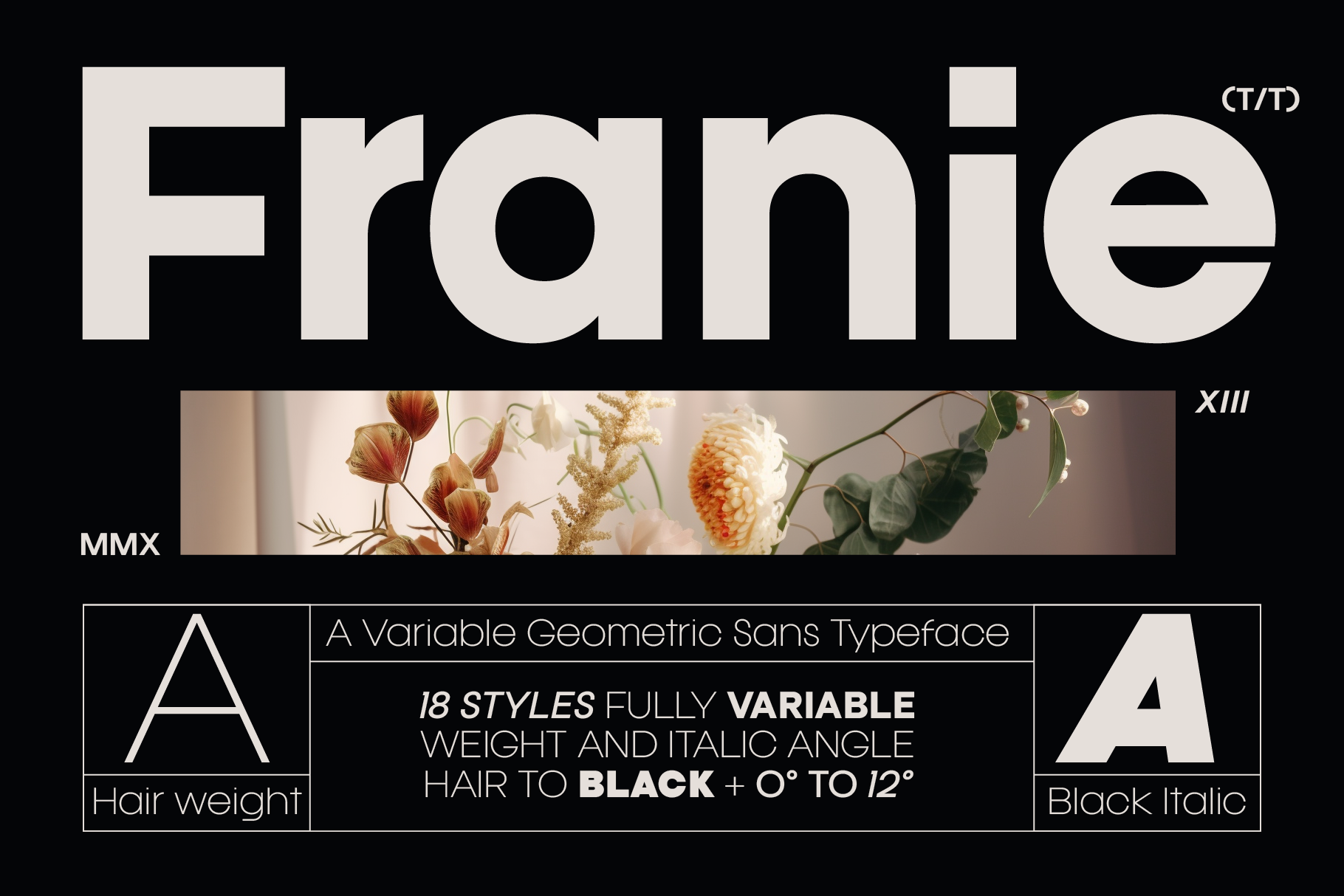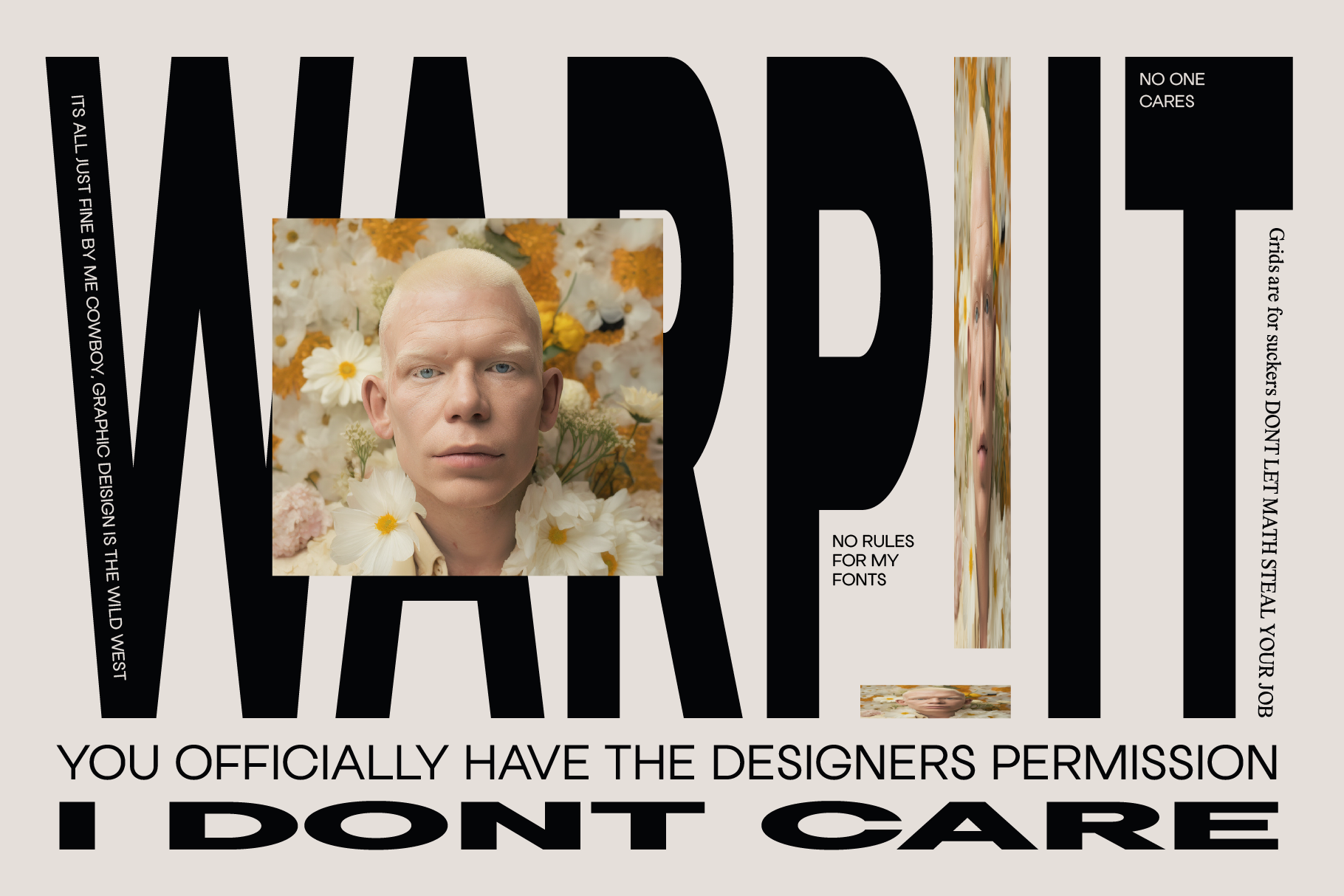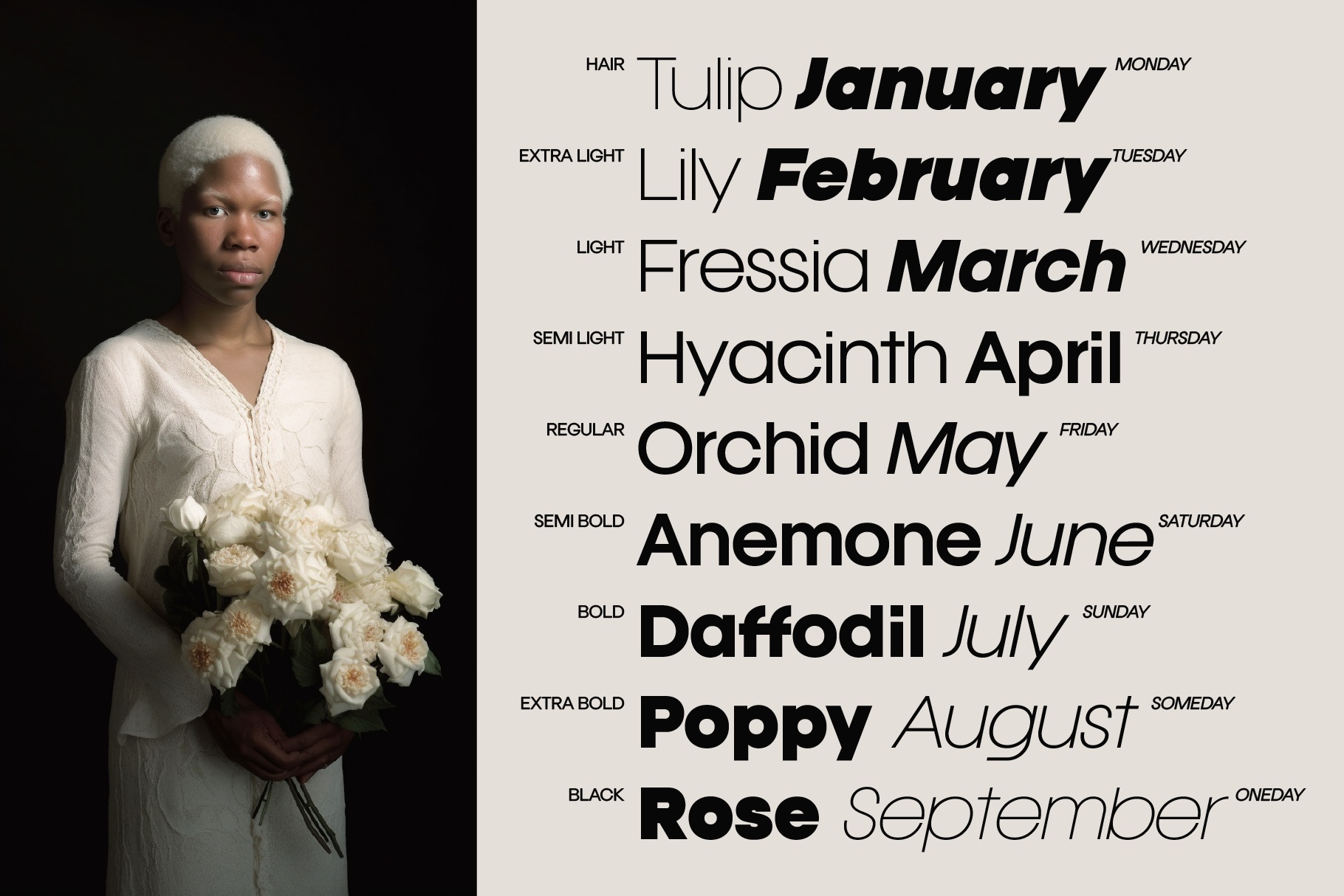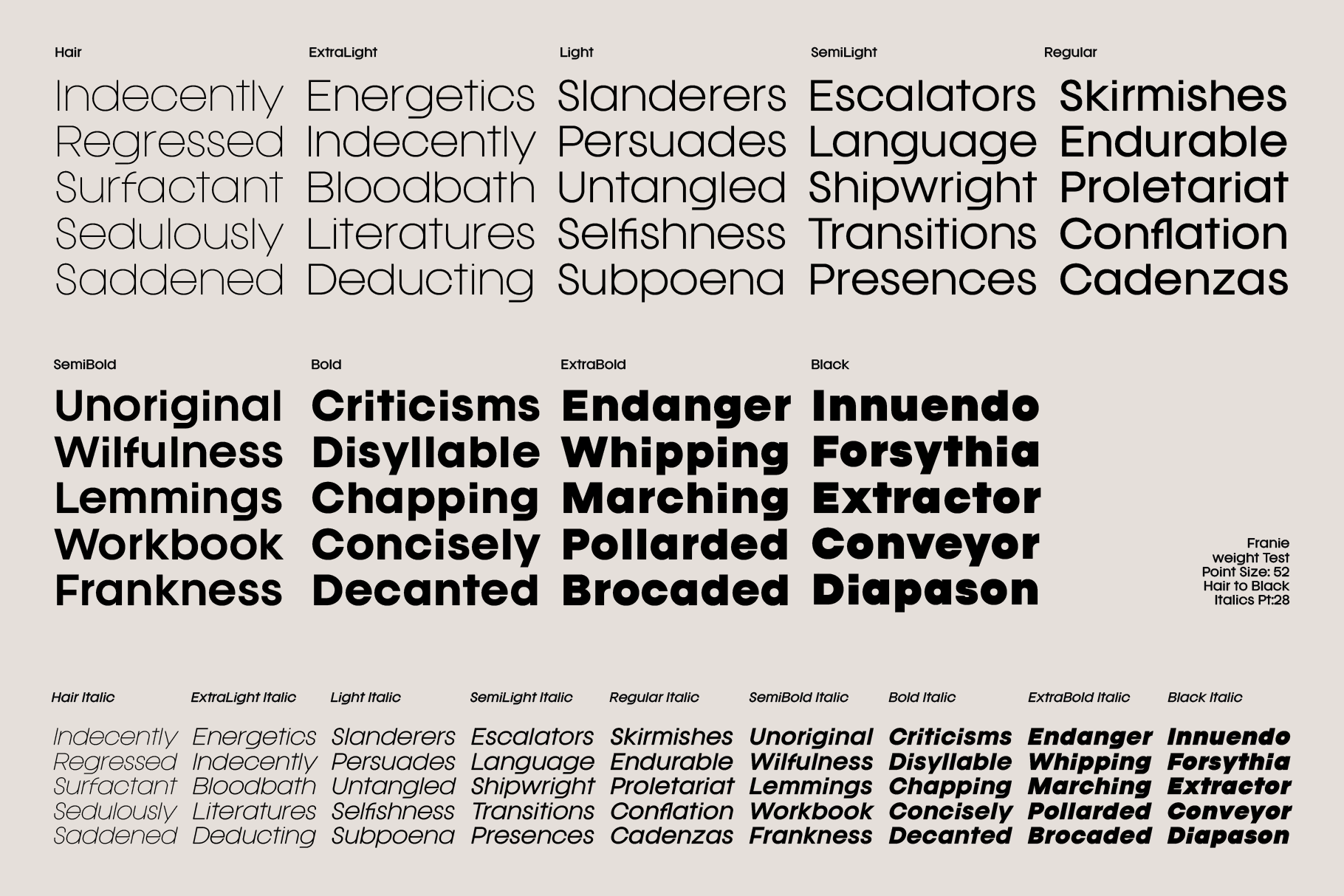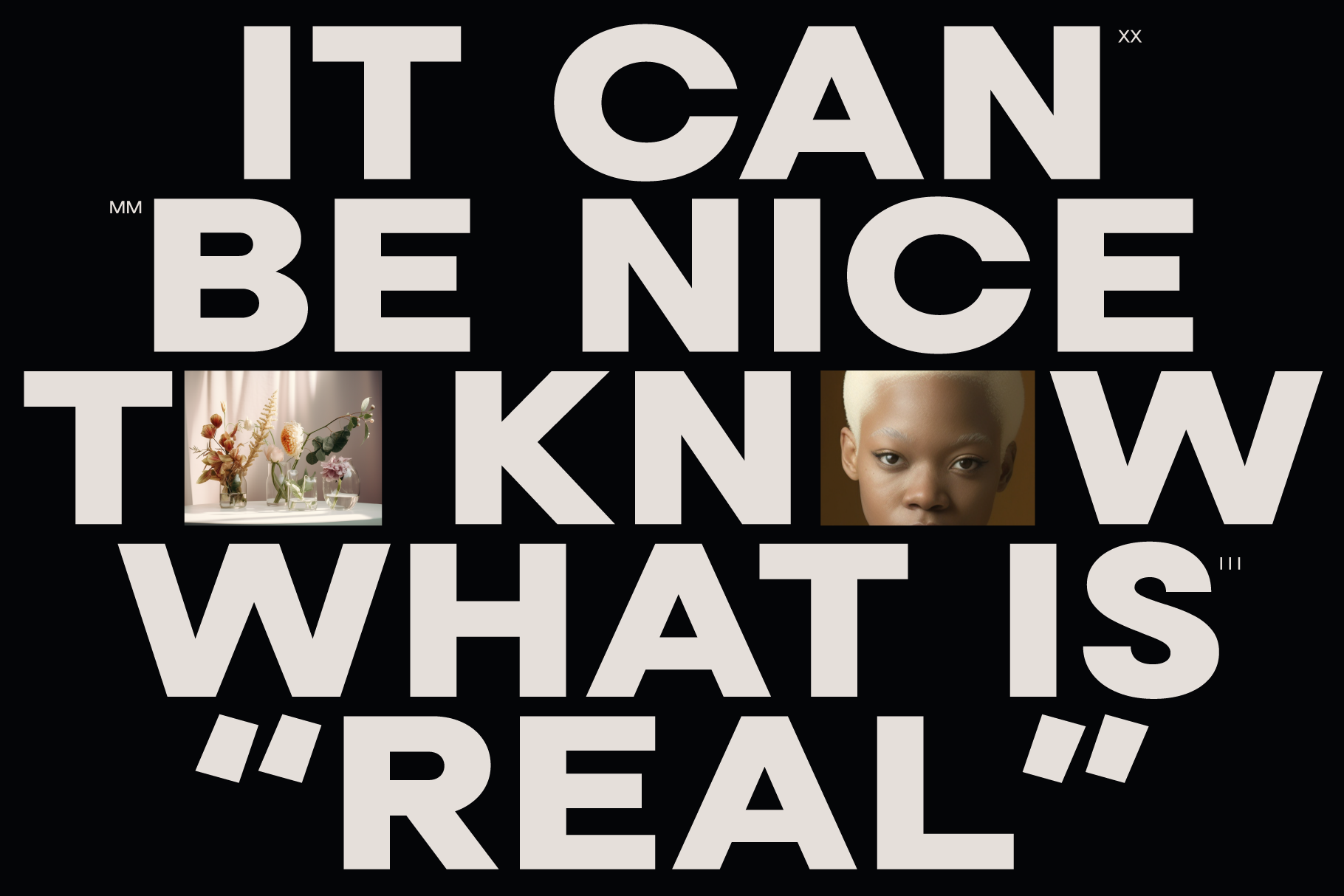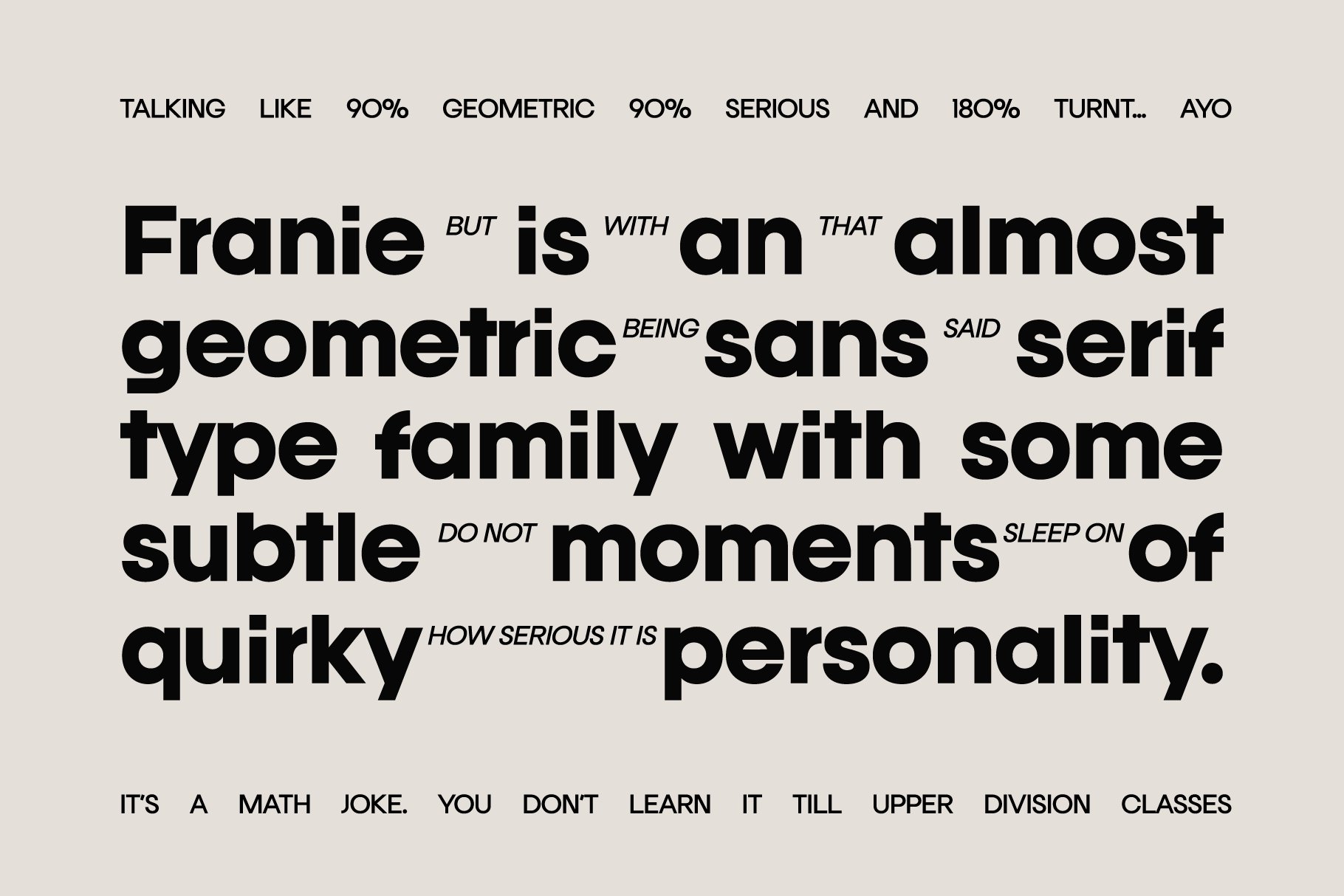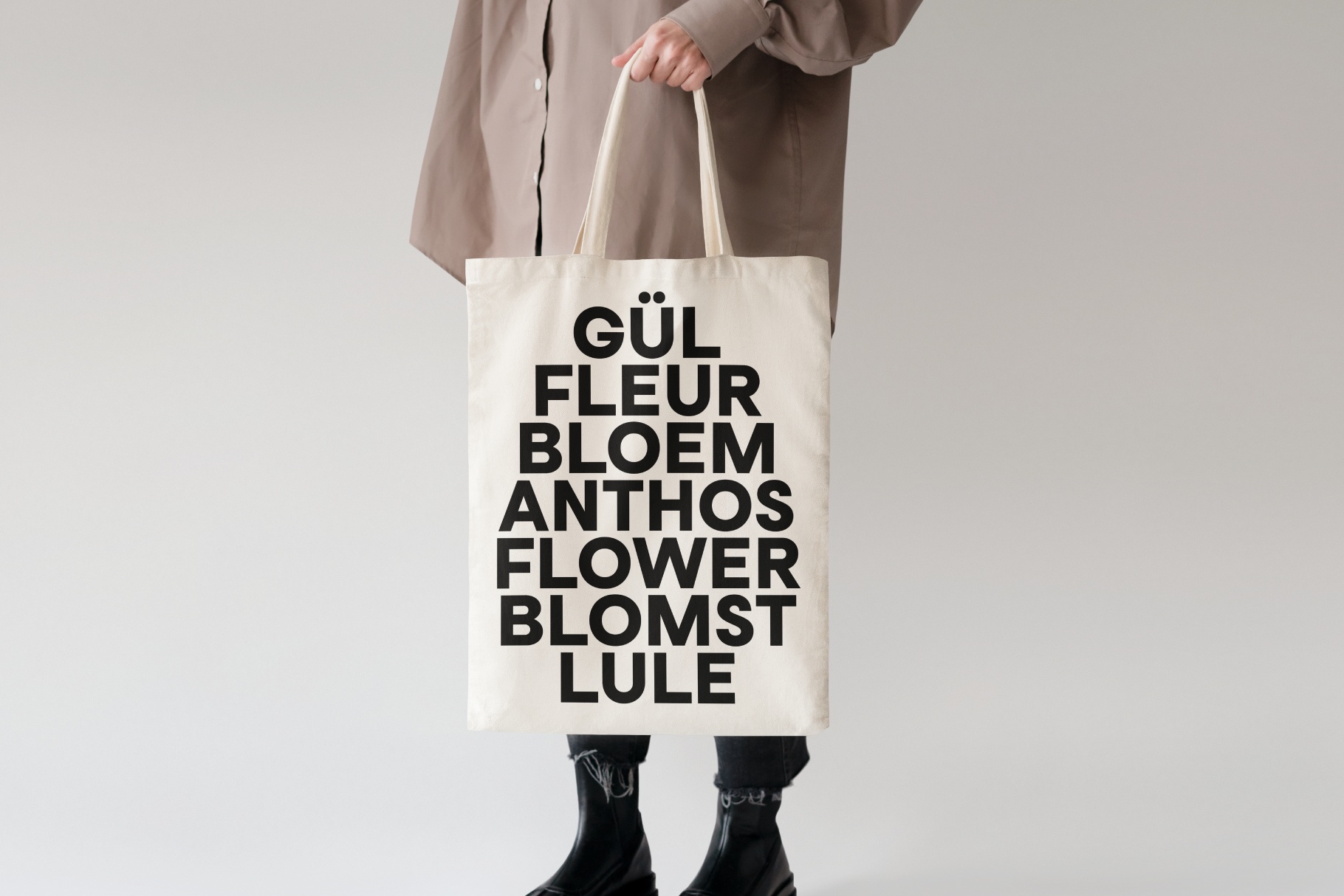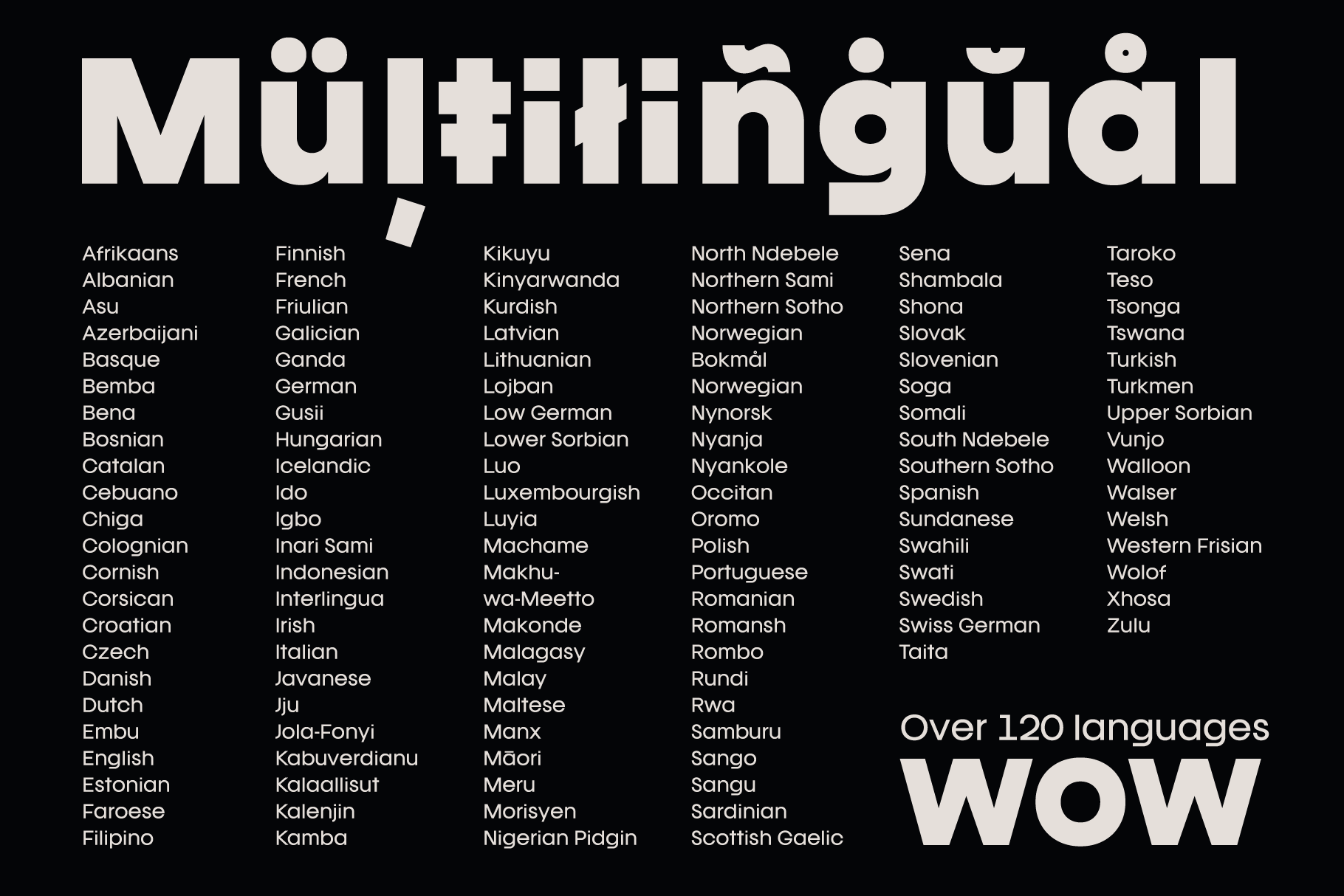
Franie - Geometric Sans Font Family
Franie runs a full geometric sans through nine weights from Hair to Black, each cut with a rounded lowercase g and a shortened counter in the heavier italics that keep the strict grid from reading flat. The whole range sits on one variable axis, so weight and a 0–12° italic slant can be dialed to an exact position instead of picked from a fixed step.
Set against full-bleed photography and dense editorial grids, the type moves comfortably from a fashion headline to a flower-name tote print without losing its geometric backbone. Use it for branding systems, magazine layouts, packaging, posters, and merchandise that need a geometric sans with room to flex.
- uppercase & lowercase;
- 9 weights (Hair to Black) + italics, 18 styles total, fully variable;
- small caps, fractions;
- alternate stylistic set with square dots;
- numerals, punctuation, symbols & arrows;
- multilingual support;